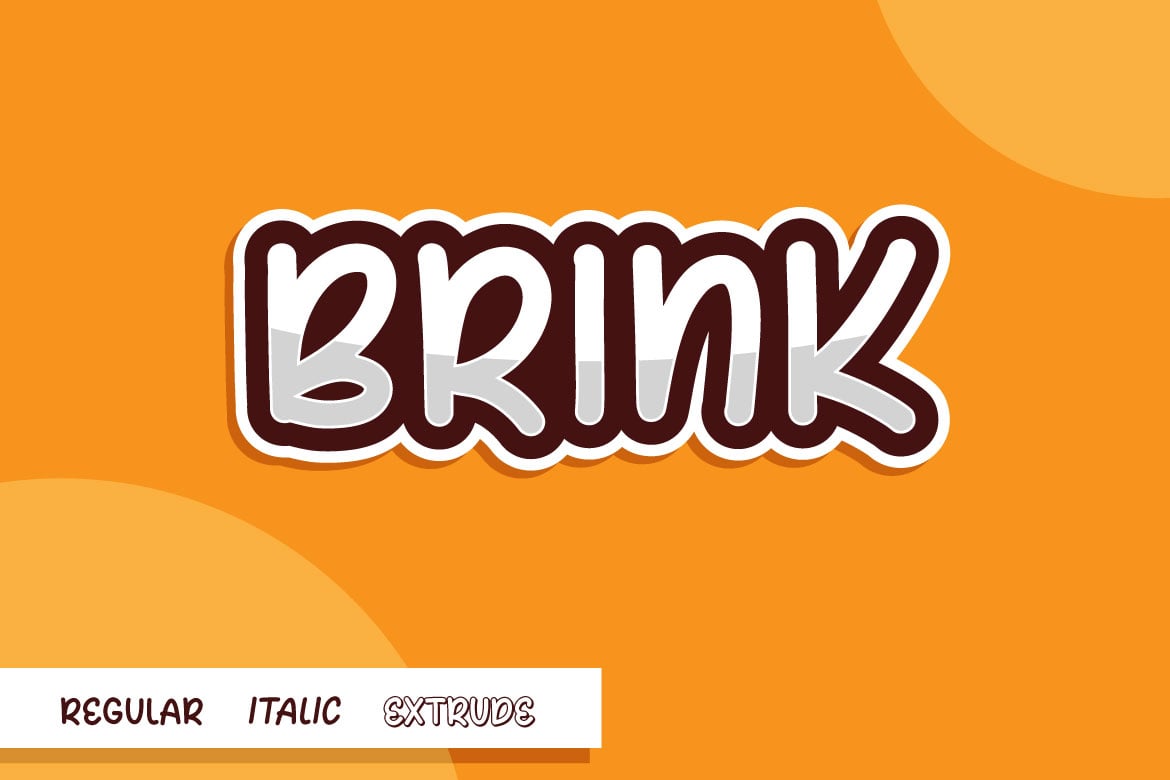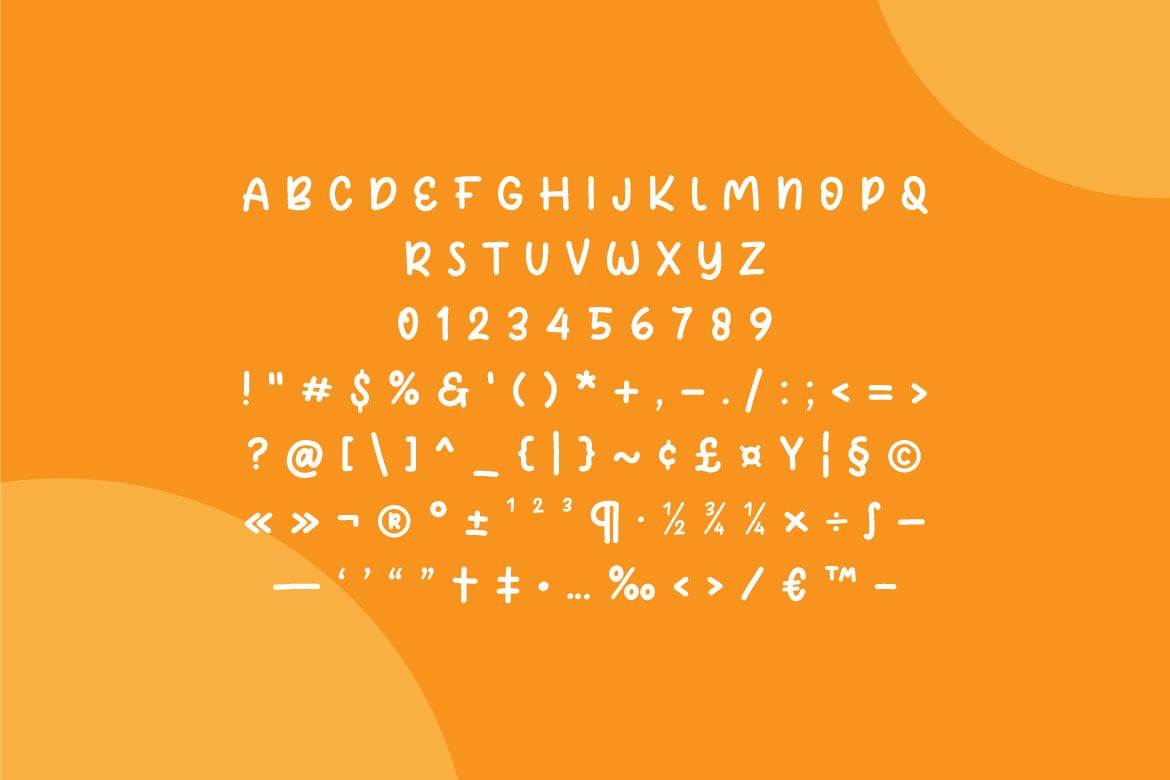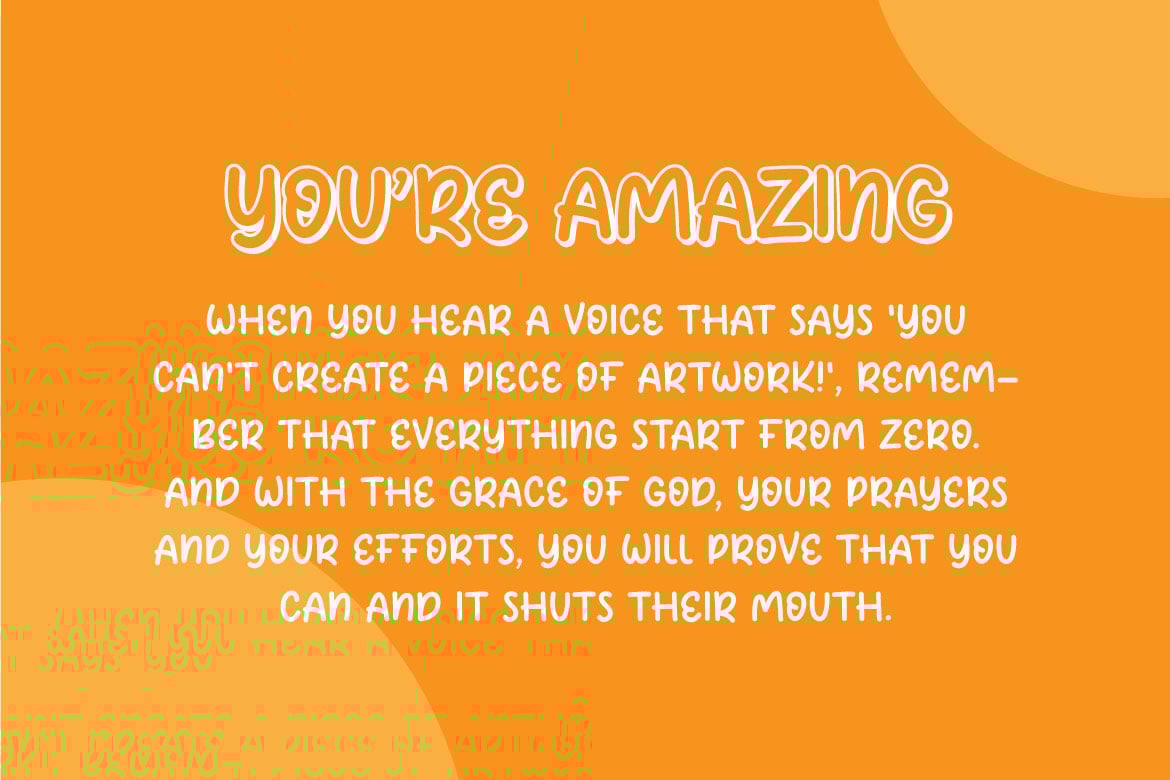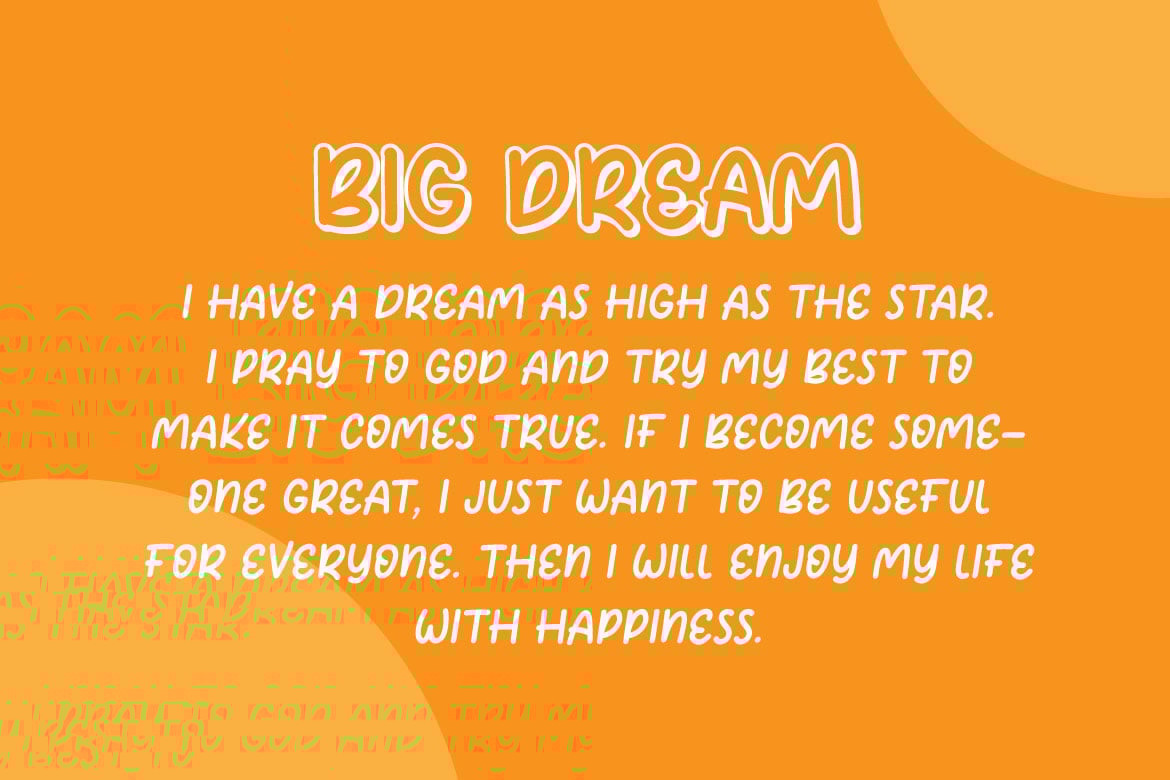
Brink – Funny Playful Comic Font
Hello! Brink is a simple playful comic font.
Brink can be used in any works such as storybook, comic book, school, flyer, book title, advertisement, social media content, logo and many more.